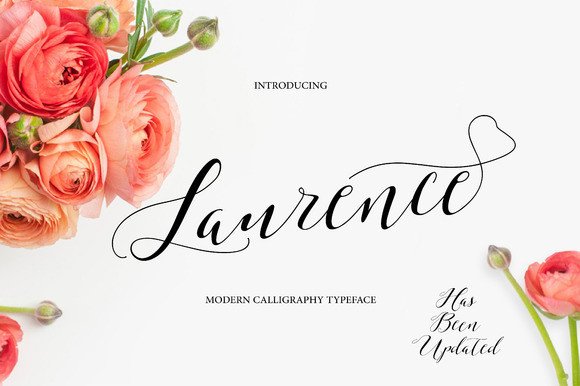
Presenting Laurence Script, the most charming and elegant handwritten calligraphy typeface that will captivate your designs with its inherent grace and beauty. Created by the talented BONJOURTYPE, Laurence Script is a visual masterpiece that dances effortlessly across your projects, adding a touch of timeless sophistication and playfulness.
Imagine your designs adorned with the flowing strokes and whimsical curves of Laurence Script. Its ligatures intertwine harmoniously, creating a sense of fluidity that brings your words to life. The dancing baselines add a touch of dynamism, ensuring that your designs never appear static or dull.
With Laurence Script, you have an entire font family at your fingertips, perfect for a myriad of creative endeavors. Craft eye-catching headings that demand attention, design logos that exude personality, and create invitations that evoke a sense of occasion. T-shirt designs, greeting cards, posters, labels – Laurence Script elevates every project it touches, adding a dash of elegance and uniqueness.
Whether you're a seasoned designer or just starting your creative journey, Laurence Script is the perfect companion. Its versatility knows no bounds, making it an indispensable tool for your design arsenal. Unlock your creativity and let Laurence Script transform your designs into works of art.
Experience the magic of Laurence Script today and embark on a typographic adventure that will leave you breathless. Its alluring charm and timeless beauty will captivate your audience and elevate your designs to new heights. Embrace the individuality of Laurence Script and let your creations shine with brilliance and sophistication.